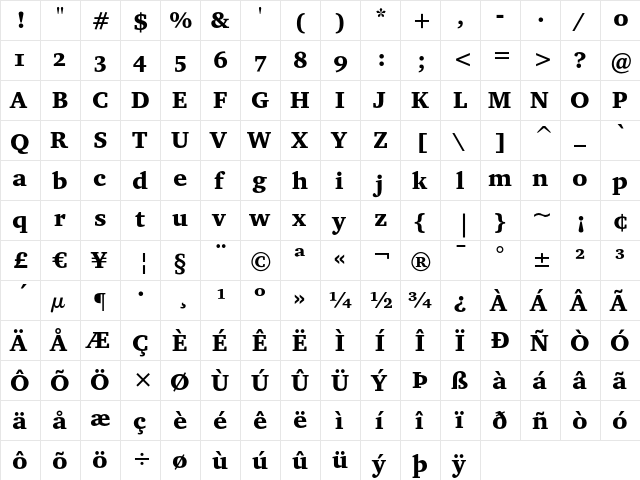
Bitstream Charter Black OSF
Design Context for Bitstream Charter Typeface
Bitstream Charter is a composed and adaptable typeface that performs quietly and consistently across a wide range of design contexts.
Pro Tip: Use Bitstream Charter in both headline and body roles to test its range before committing to a single application.